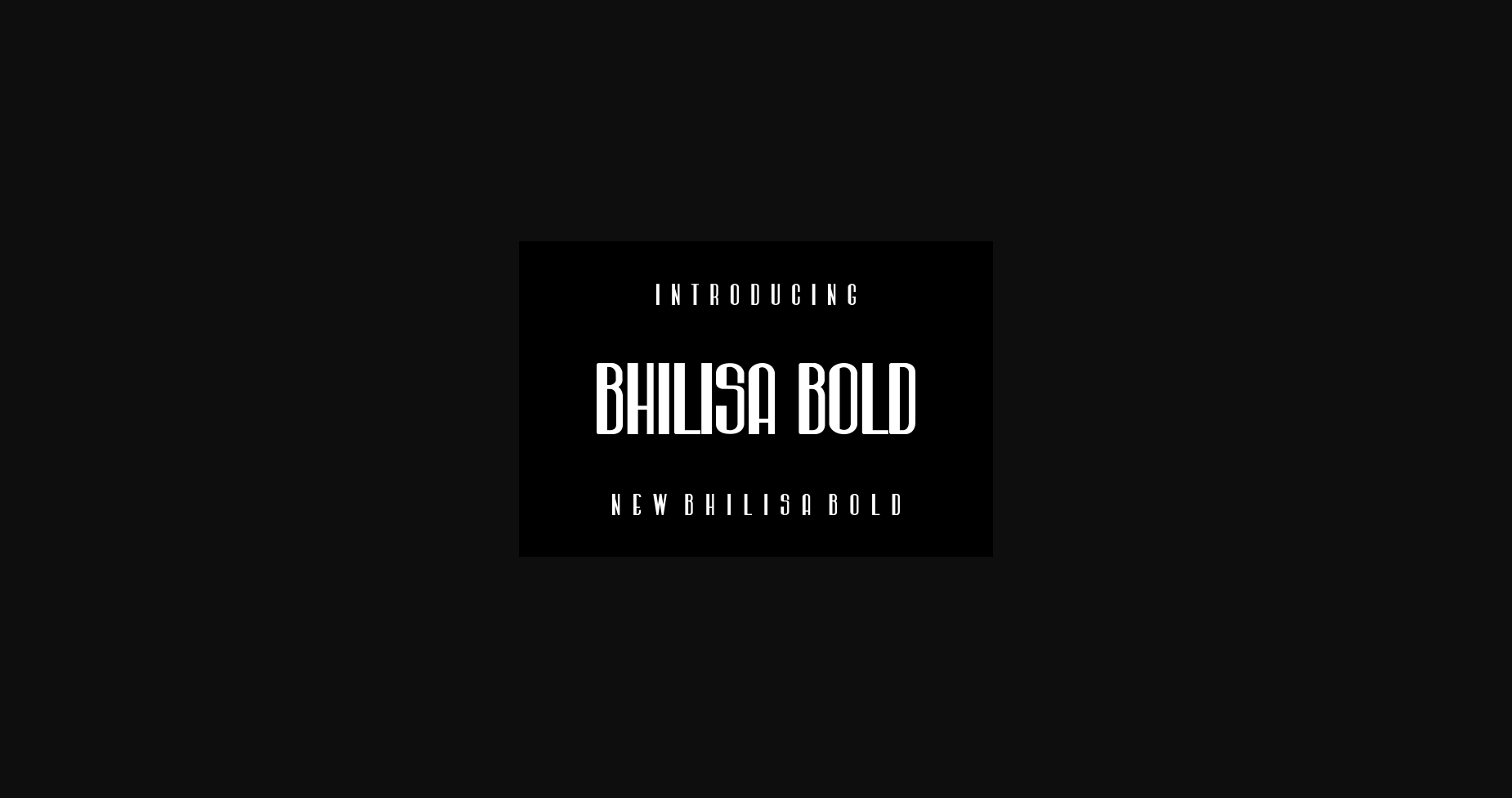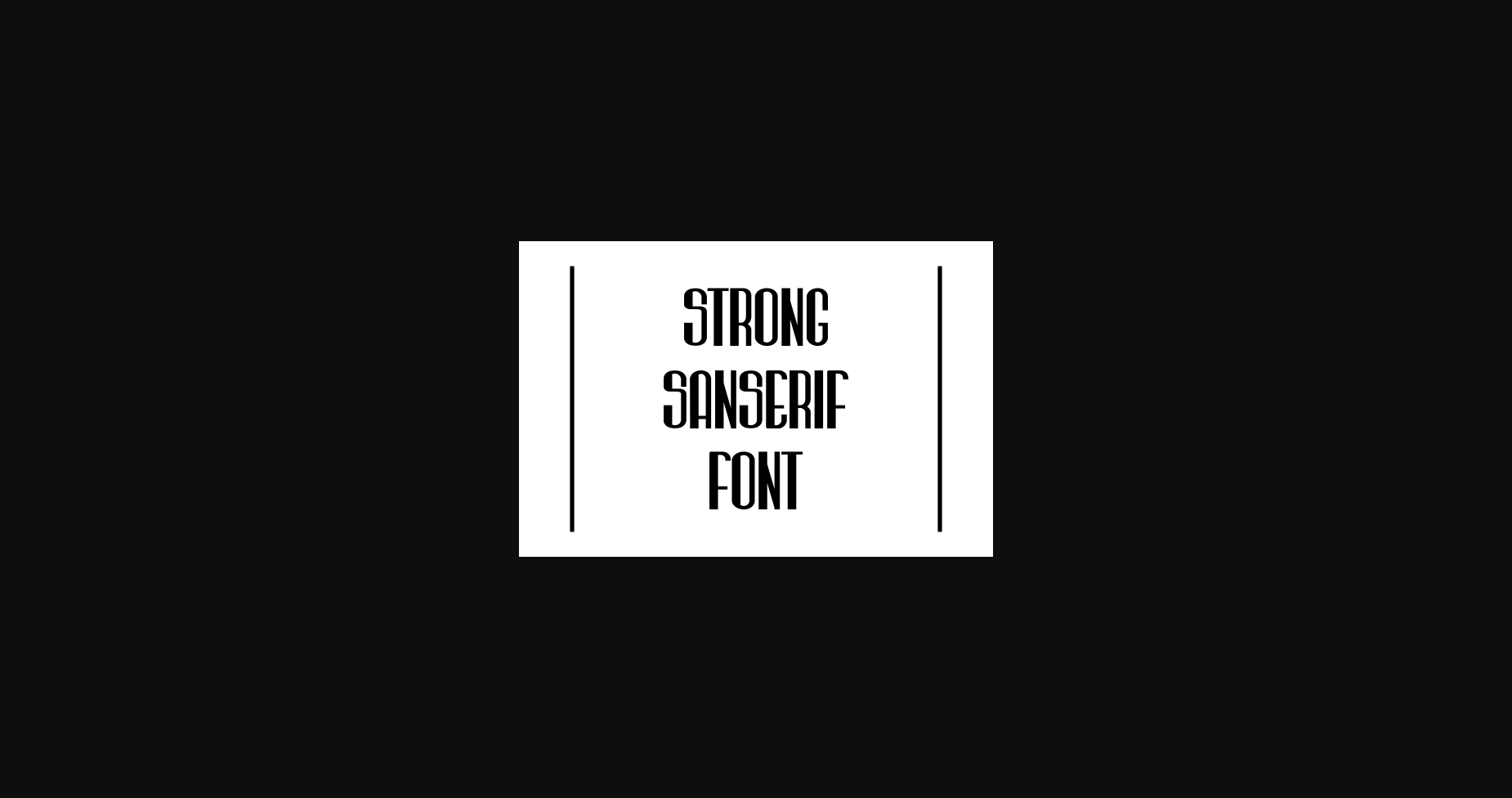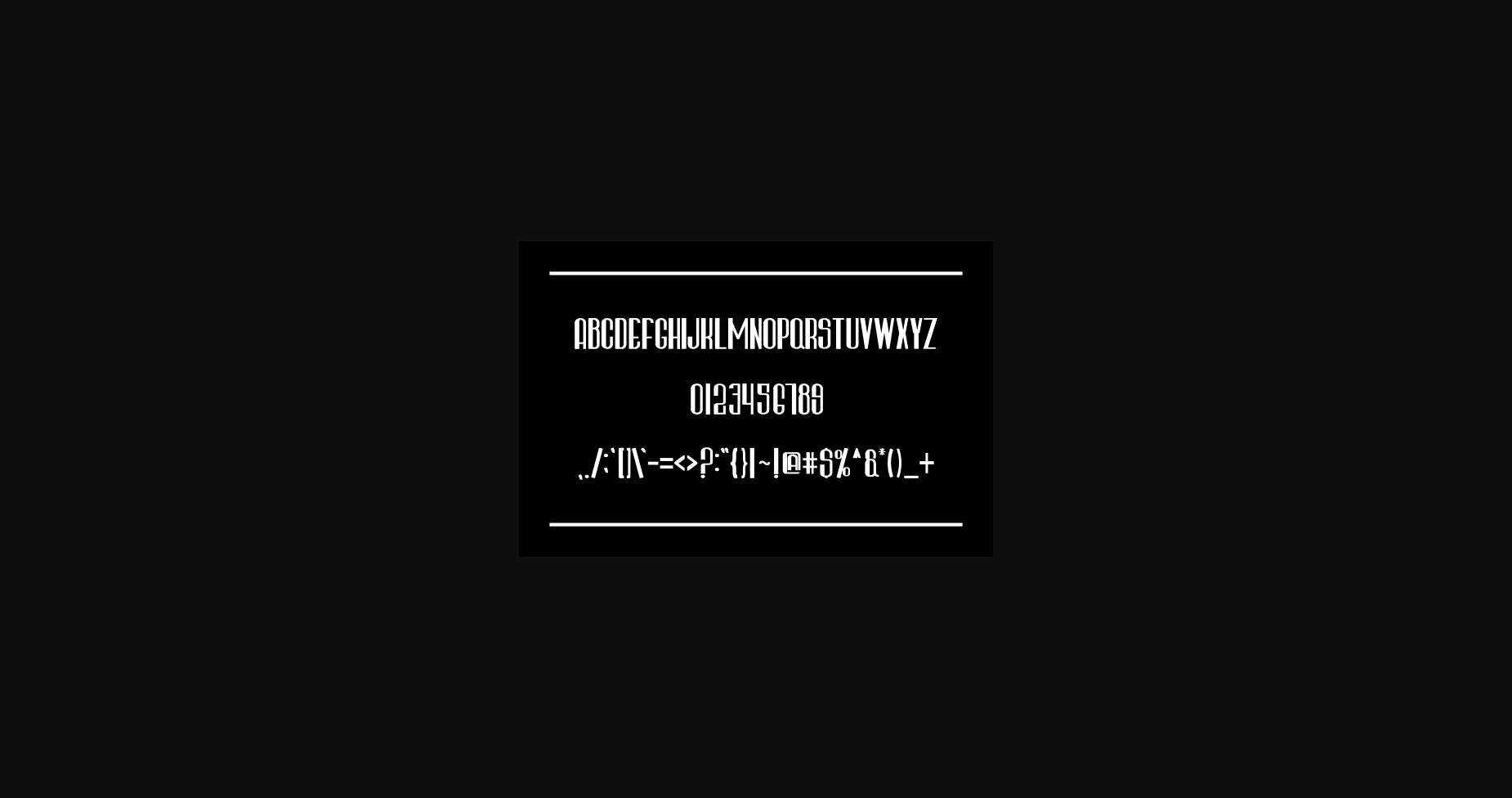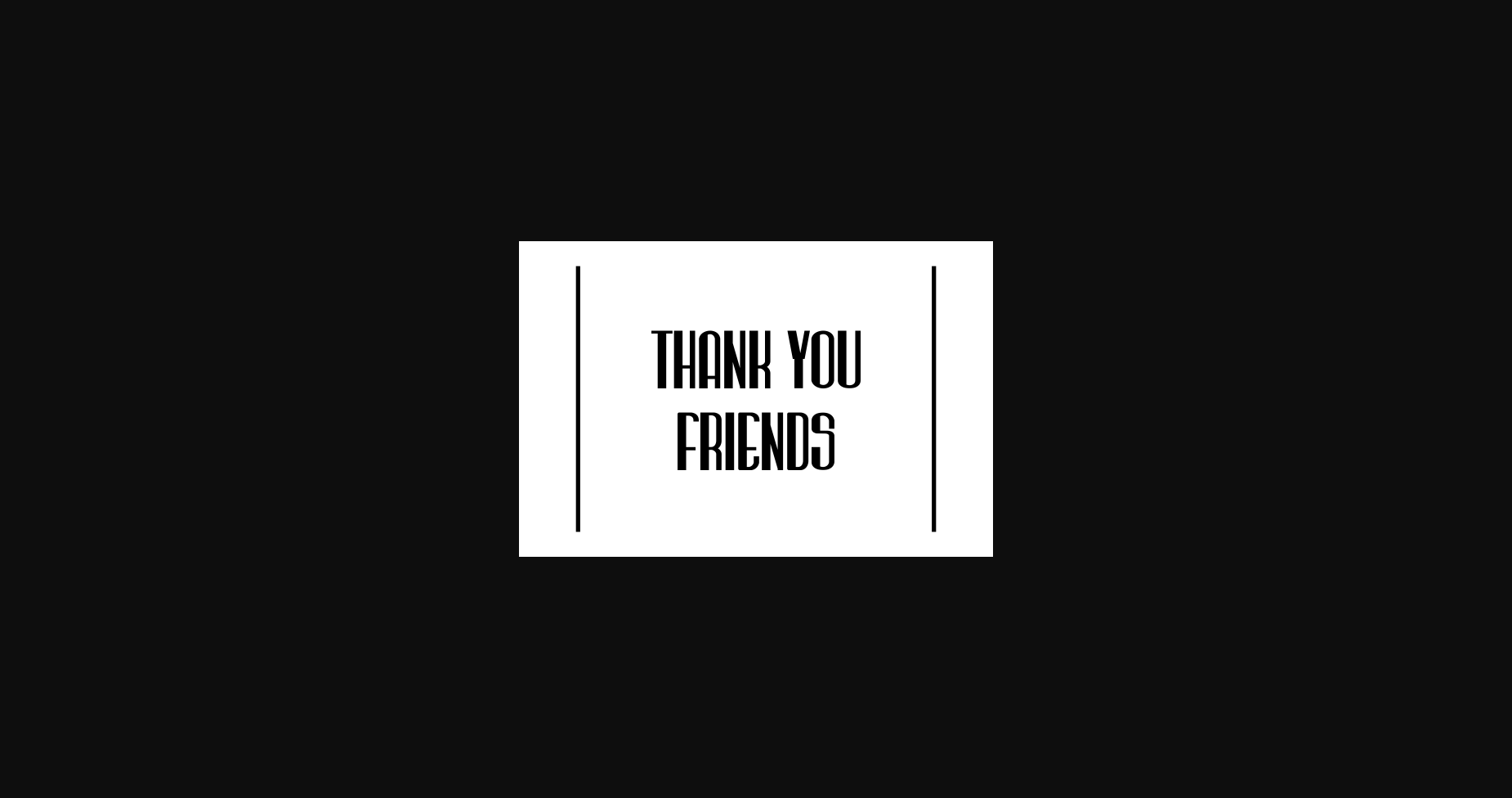
Bhilisa Bold Font
About Bhilisa Bold Font
Bhilisa Bold is a powerful and assertive sans serif font. No matter the topic, this font will be an incredible asset to your fonts’ library, as it has the potential to elevate any creation.